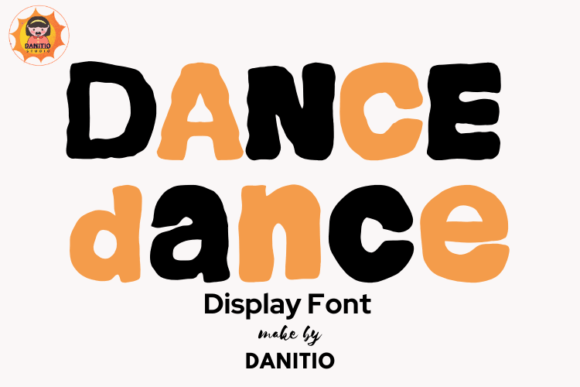
Behold, the Dance Font - a captivating display typeface that dances across your designs with its graceful charm. With its clean lines and inviting rounded edges, Dance Font is the perfect choice for adding a touch of warmth, playfulness, and coolness to your creative projects.
Step into a world of visual delight as you explore the endless possibilities of Dance Font. Let your imagination soar as you craft eye-catching logos that dance off the page, or design packaging that radiates with a sense of joy and whimsy. The Dance Font is your key to unlocking a treasure trove of creative expression.
Whether you're a seasoned designer or just starting your creative journey, the Dance Font is your perfect partner. Its user-friendly nature makes it accessible to all, allowing you to effortlessly add a touch of elegance and sophistication to your designs.
With the Dance Font, every project becomes a canvas for your creativity. Its versatility shines through in a myriad of applications, from Christmas card labels that spread holiday cheer to invitations that exude a sense of celebration. Let Dance Font guide your imagination and create designs that leave a lasting impression.